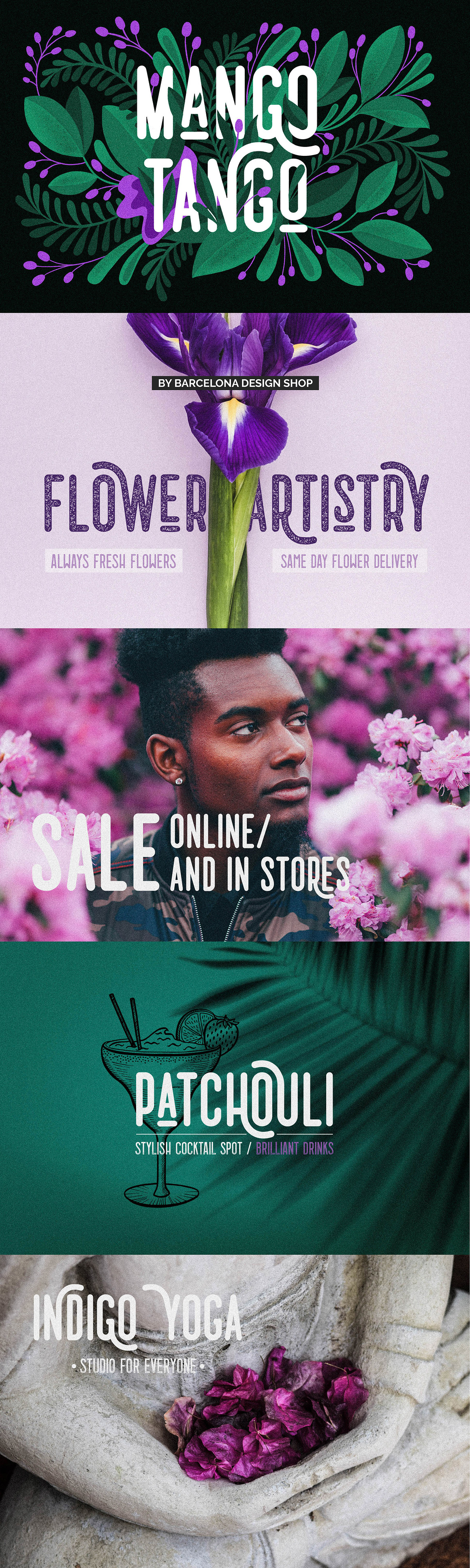
3 Fonts Mango Tango Collection
3 Fonts Mango Tango Collection is perfect for tropical resort branding, exotic fruit packaging, summer festival marketing, Caribbean restaurant menus, tropical beverage campaigns, vibrant fashion brands, dance studio promotions, Latin music events, colorful party invitations, and energetic lifestyle communications.
What makes 3 Fonts Mango Tango Collection exciting is its tropical vibrancy that captures the passionate energy of Latin dance culture and exotic fruit flavors through rhythmically crafted letterforms. This dynamic font collection combines Caribbean warmth with contemporary flair, creating a personality that communicates passion, celebration, and genuine tropical joy. The collection's mango-tango character and festive appeal make it perfect for brands seeking to evoke the intoxicating atmosphere of tropical paradises and the infectious energy of Latin dance traditions.
The 3 Fonts Mango Tango Collection family includes Script Regular, Script Bold, Sans Regular, Sans Bold, Display Regular, Display Bold, Tropical, and Festive variants. Each style maintains the collection's vibrant character while providing comprehensive typographic flexibility for tropical brand identity systems and festive design applications across diverse entertainment platforms.
Whether you're developing tropical resort identities, creating summer marketing materials, designing dance event promotions, or building Caribbean tourism campaigns, 3 Fonts Mango Tango Collection delivers unmatched tropical appeal and Latin sophistication. Its passionate presence makes it perfect for tropical destinations, dance studios, Latin restaurants, and entertainment venues seeking authentic Caribbean representation.
The font collection's rhythmic proportions and tropical details create an energizing reading experience that transports audiences to sun-soaked beaches and vibrant dance floors. Each letterform has been carefully crafted to evoke tropical warmth and Latin passion while maintaining excellent readability across modern entertainment applications.
This versatile typeface collection excels in festive environments, offering designers the vibrancy needed for comprehensive tropical brand communication strategies. The extensive character set includes tropical alternates, festive ligatures, and Caribbean symbols for entertainment market positioning and tropical brand storytelling.
Embrace the power of festive design that celebrates Caribbean culture and authentic tropical dance traditions.